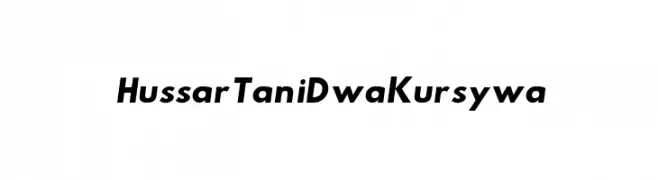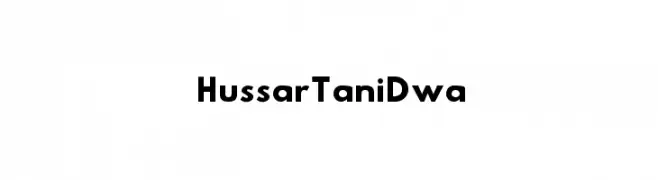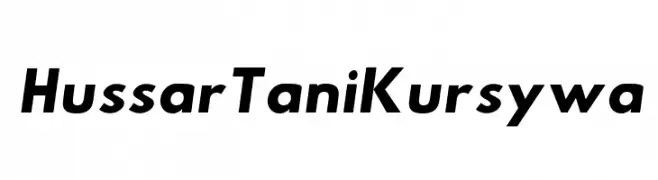
A bold, oblique font with a modern and dynamic style.
A bold, oblique font with strong, dynamic characters.
A bold, geometric font with a modern and clean aesthetic.
A bold, geometric font with clean lines and a modern aesthetic.
A bold, modern font with clean, geometric shapes and rounded edges.
A bold, italicized font with a modern and dynamic style.
A bold, modern font with a slight italic slant and consistent stroke width.
A bold, rounded font with a playful and approachable style.
A bold, geometric font with strong, modern letterforms.